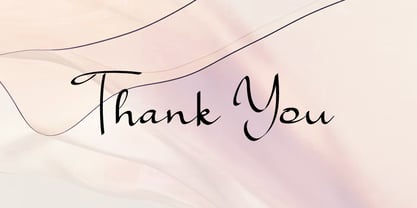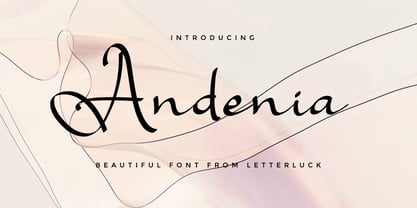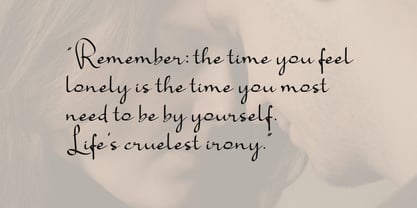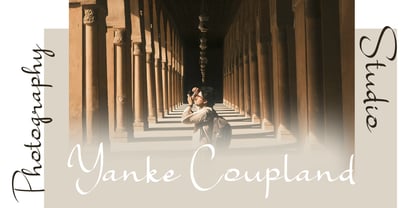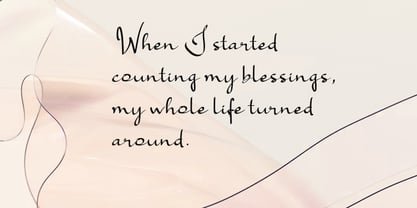
Andenia
by Letterluck
The Andenia Font Family was designed by and published by Letterluck. Andenia contains 1 styles. More about this family
Andenia is a contemporary script typeface that seamlessly blends elegance with playful charm. Its unique uneven baseline imparts a dynamic, handcrafted feel, while the chic and feminine design makes it perfect for wedding invitations, thank you notes, quotes, greeting cards, logos, and business cards. With features such as initial and final characters, stylistic alternates, and comprehensive multilingual support, Andenia provides exceptional versatility for various creative projects. Whether you are designing romantic stationery, branding with sophistication, or crafting heartfelt messages, this typeface adds a graceful, modern touch that enhances any composition with personality and flair.
Foundry: Letterluck
Letterluck is a professional type design studio renowned for crafting distinctive and expressive fonts that elevate visual communication. Their creations are not just typographic tools—they're storytelling instruments that help designers convey emotion, tone, and intent with clarity and impact. Every font produced by Letterluck is meticulously designed to ensure it complements the message of the design, whether it's bold and attention-grabbing or subtle and elegant. With a deep understanding of design principles and audience psychology, Letterluck empowers creatives to deliver their messages effectively, making each project resonate with its intended viewers. Their fonts are versatile, modern, and infused with personality, making them ideal for branding, editorial work, packaging, and digital media. Whether you're aiming to evoke nostalgia, sophistication, or innovation, Letterluck’s typefaces provide the perfect voice for your design narrative.